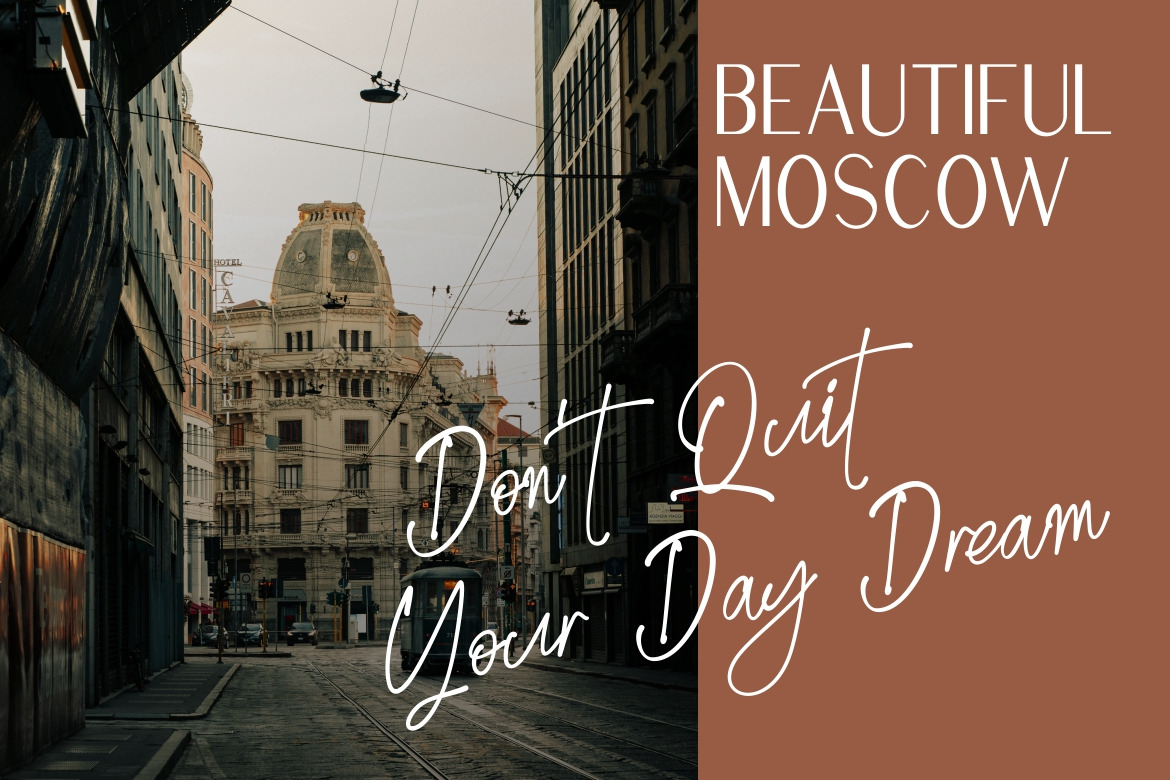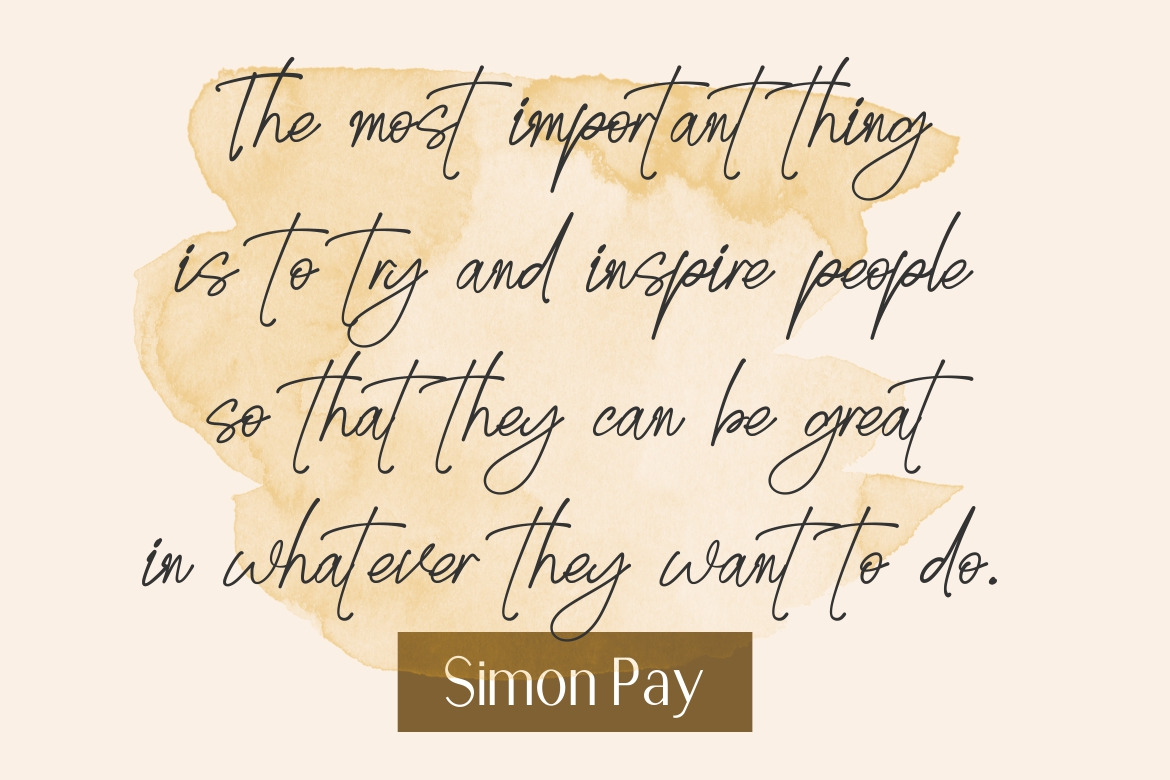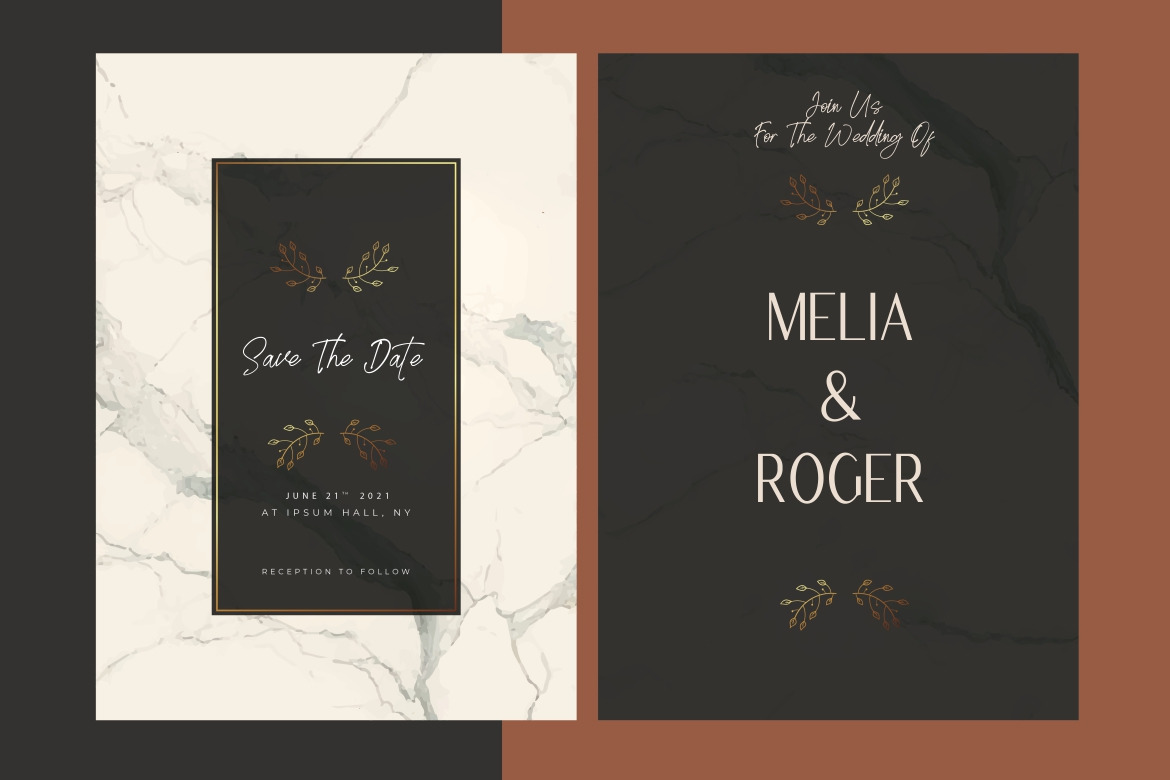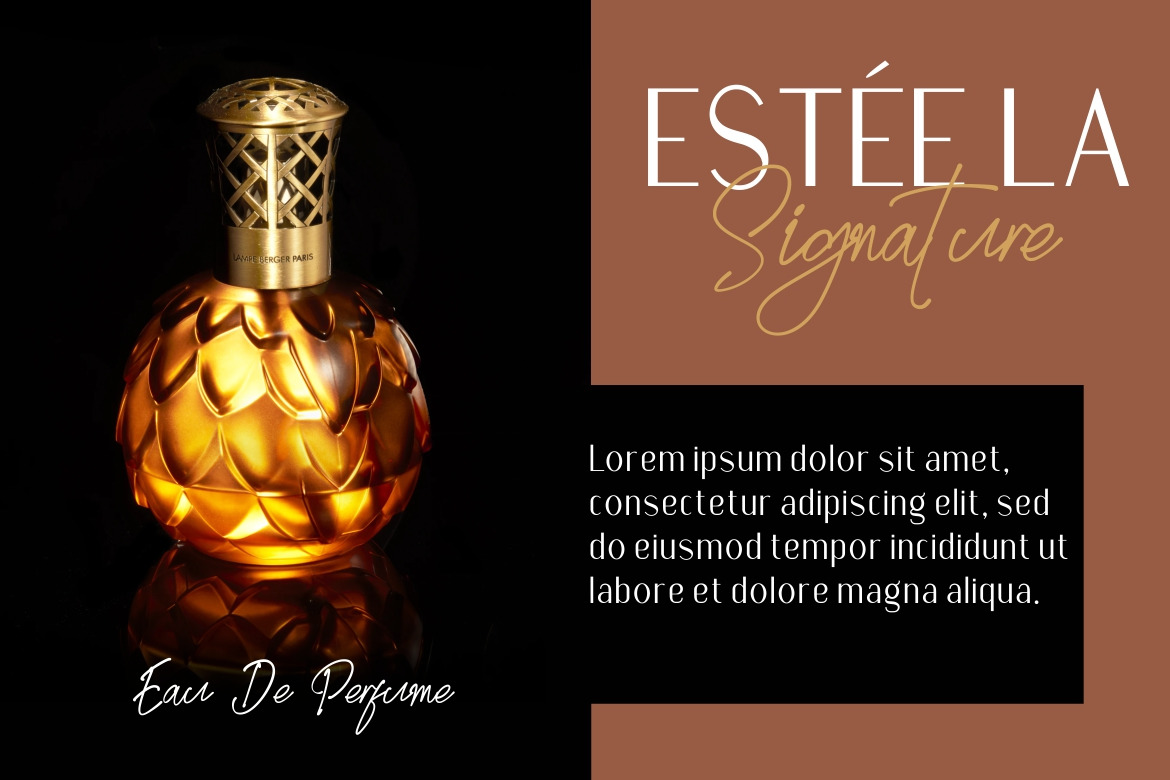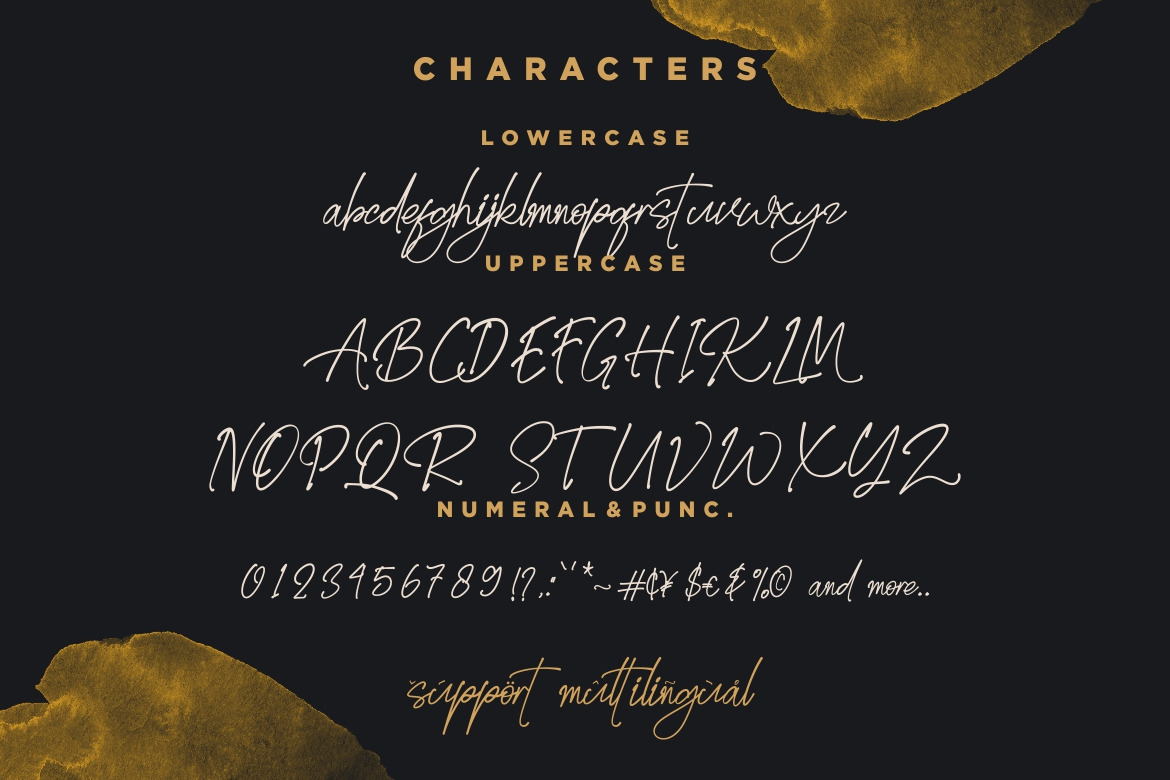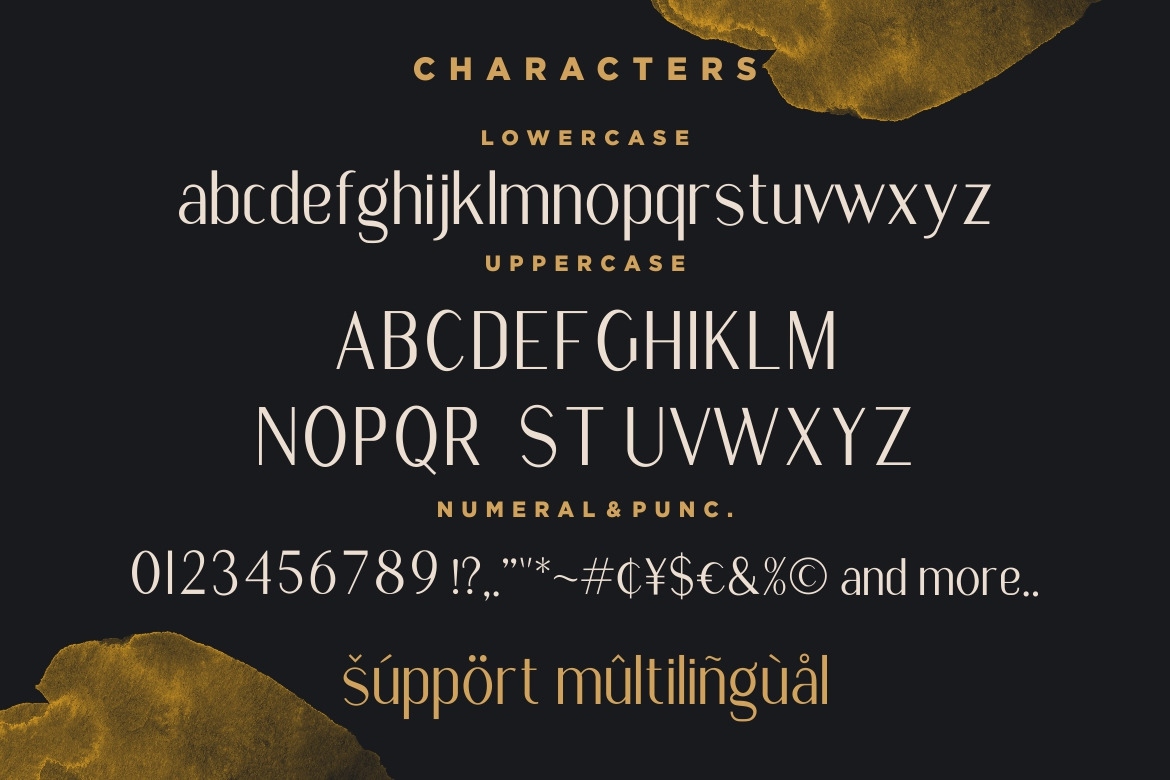
Golden Stanbury Font
Golden Stanbury is an elegant and classy font with a modern touch. This font come with signature ballpoint style that give you a sleek, elegant look for your logos, business card, wedding invitations, quotes, advertisements, and more. Create something beautiful today with Golden Stanbury.